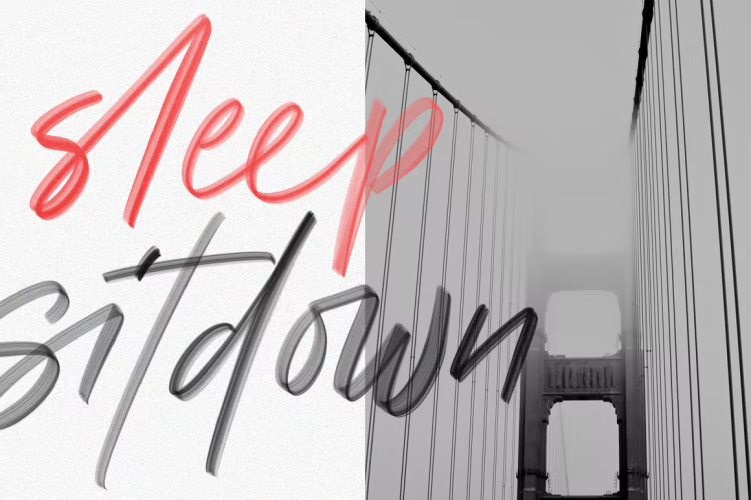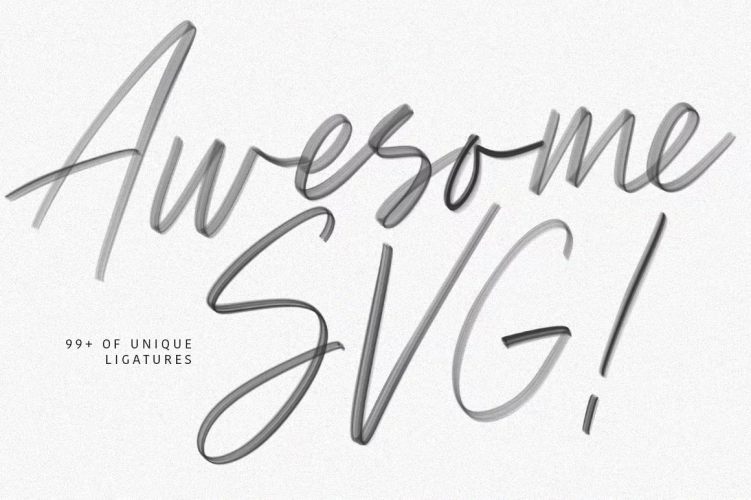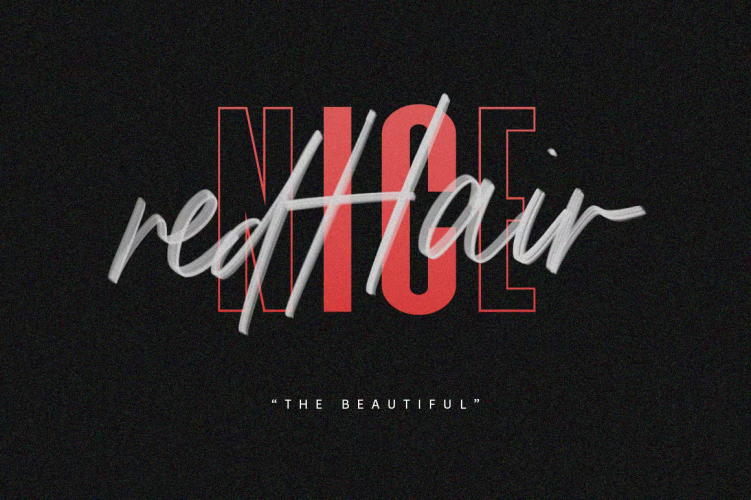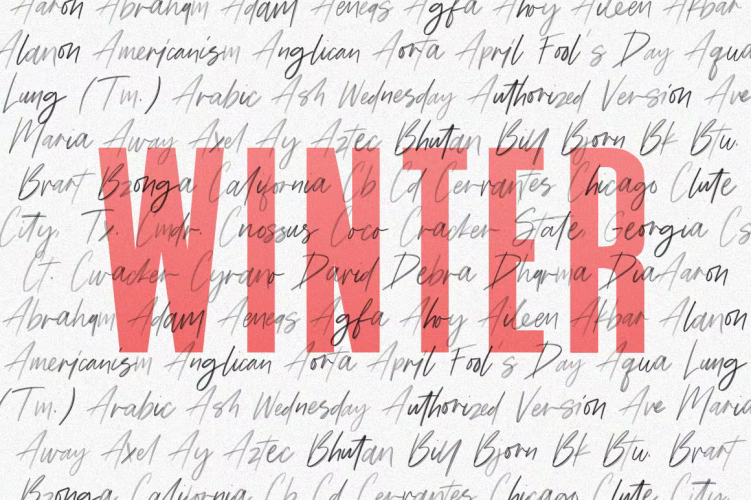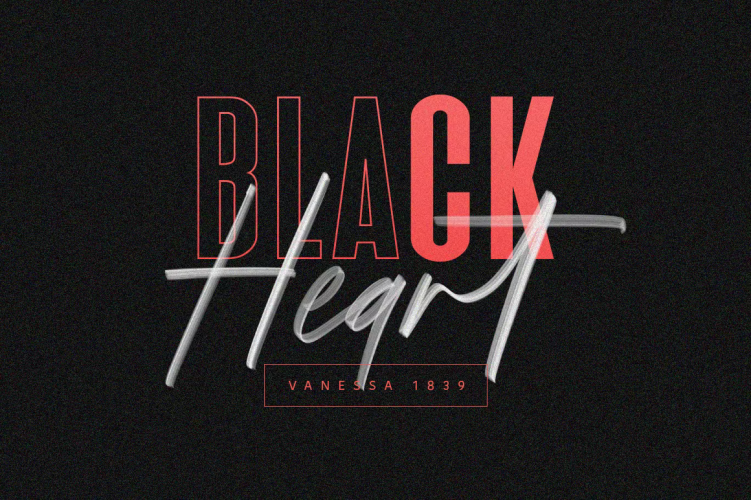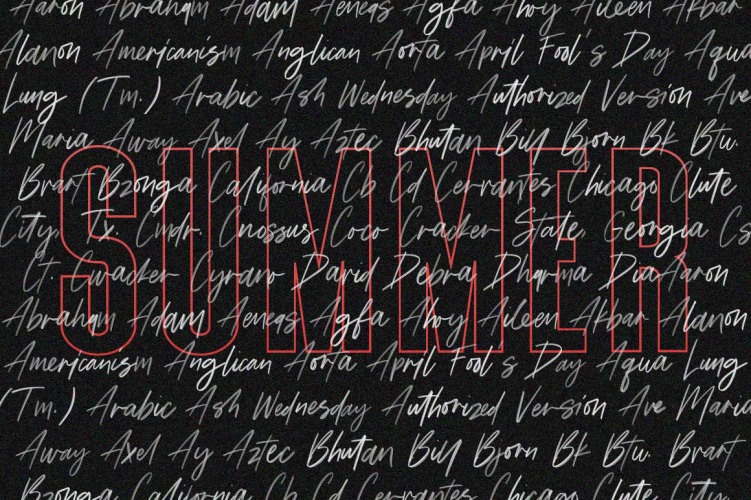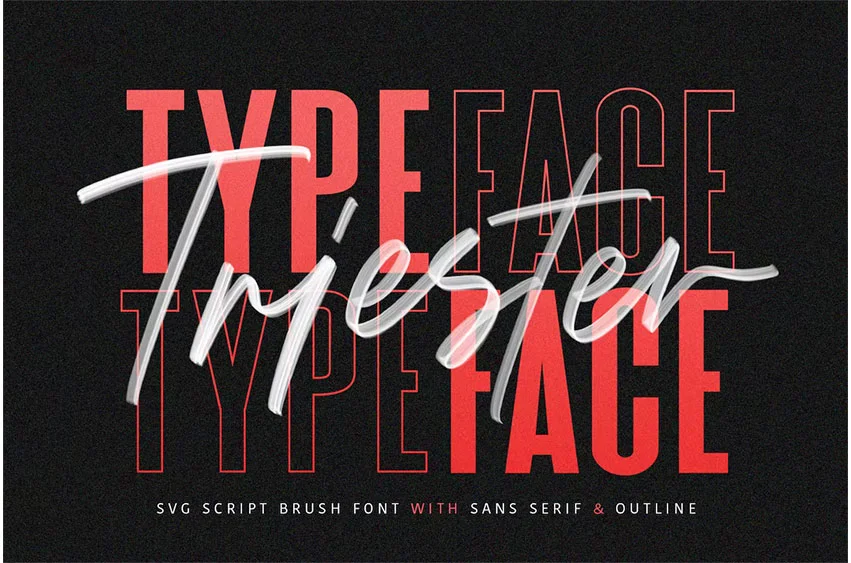
Triester Font
Triester Font Give your designs an authentic brush handcrafted feel. “Triester” is perfectly suited to signature, stationery, logo, typography quotes, magazine or book cover, website header, flyer, clothing, branding, packaging design, and more.
Where Triester Font works best
A short phrase in Triester Font carries warmth that a typeset sans cannot fake; keep the rest of the card plain.
Chalkboard-style headings in Triester Font make a menu feel hand-made. Keep the dish descriptions in a simple face so prices stay readable.
One line of Triester Font over a photo is enough; the script carries the tone and the caption does the work.
What kind of work does Triester Font suit?
It sits in the Script And Handwritten group and reads as branding, packaging, script, script and handwritten. That makes it a candidate wherever those qualities help: headings, packaging, social graphics and brand work. Set it at the size you plan to use before deciding.